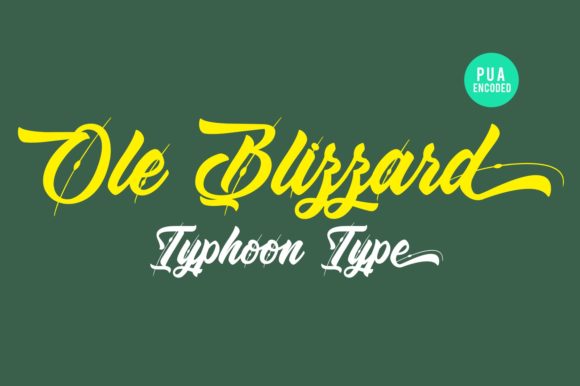
Ole Blizzard Font
About Ole Blizzard Font
Ole Blizzard is an amazing and unique handwritten font with a bold feel. It will add a playful twist to any design project.